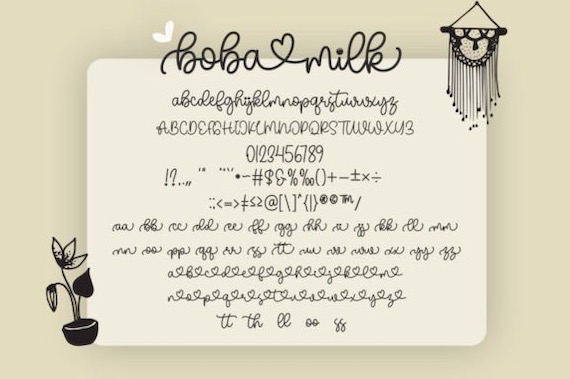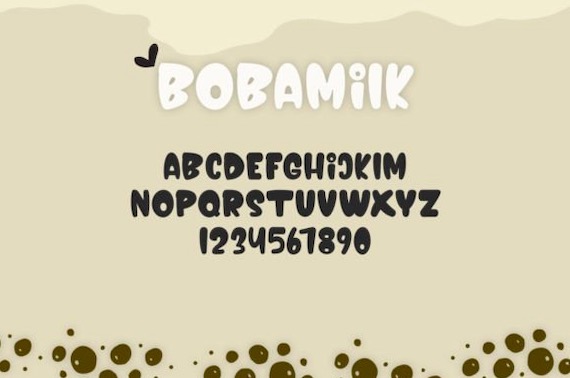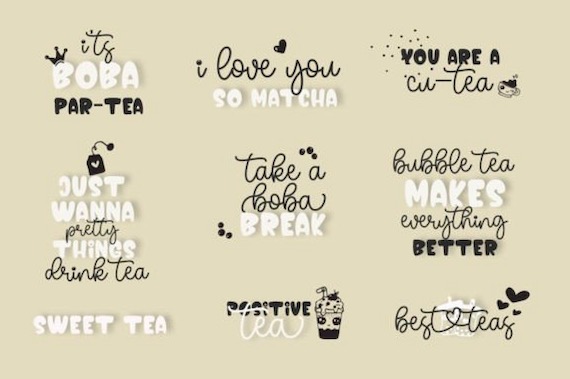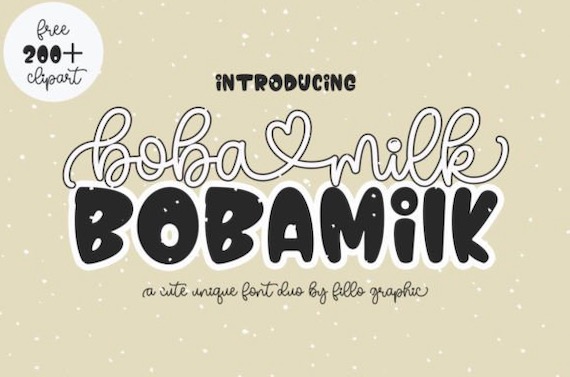
Boba Milk is a great script display font duo that was created and shared by Fillo Graphic. It includes 2 gorgeous fonts (display & handwritten) designed to complement each other perfectly. Together or apart, these fonts are ideal for adding a chic and cheery touch to your crafts. Boba Milk is PUA encoded which means you can access all glyphs and ligatures with ease!
Boba Milk Display Font